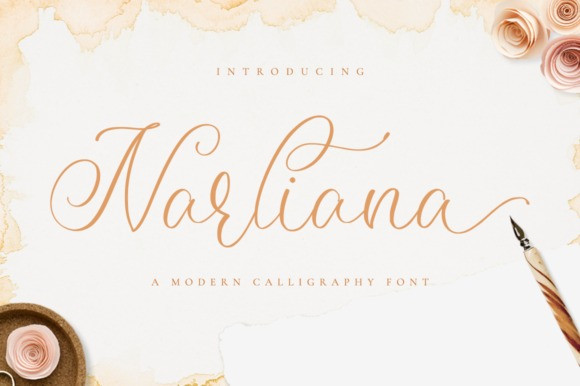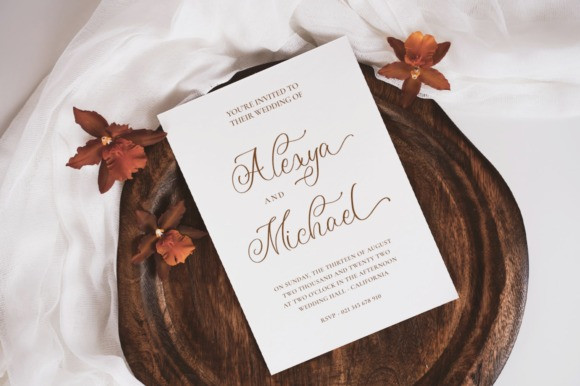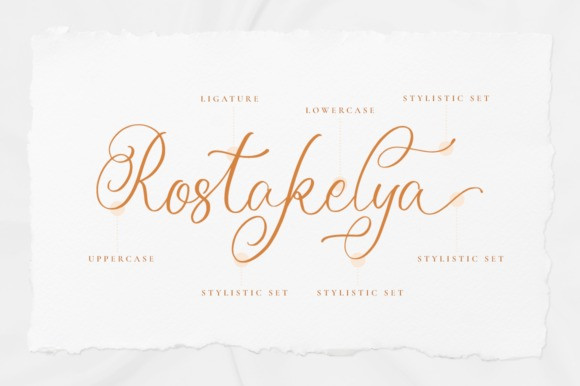
Narliana Font
Narliana is a thin lettered and graceful script font. Fall for its ravishing style and use it to create gorgeous designs! Narliana is PUA encoded which means you can access all glyphs and swashes with ease!